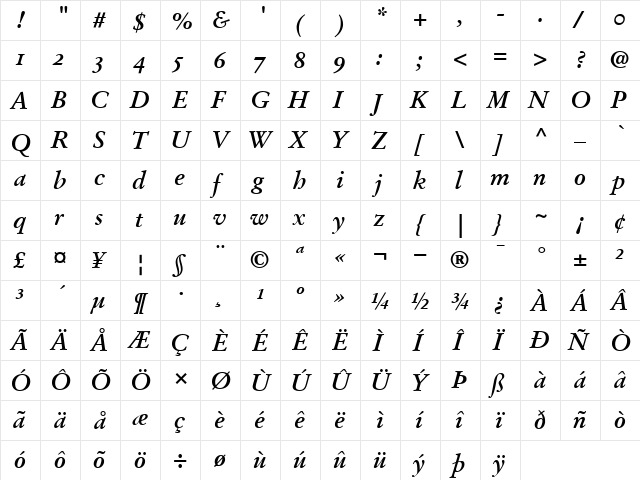
StempelGaramondOldstyleFigures BoldItalic Font Preview
Design Context for StempelGaramondOldstyleFigures Typeface
StempelGaramondOldstyleFigures carries the refined structure of traditional serif typography, with bracketed terminals and considered proportions that communicate credibility and craft. The slanted form adds forward momentum and visual energy. The heavy weight commands attention and anchors typographic hierarchies.
Pro Tip: Set StempelGaramondOldstyleFigures with slightly loose tracking in headlines to let each letterform's detail read clearly at display sizes.